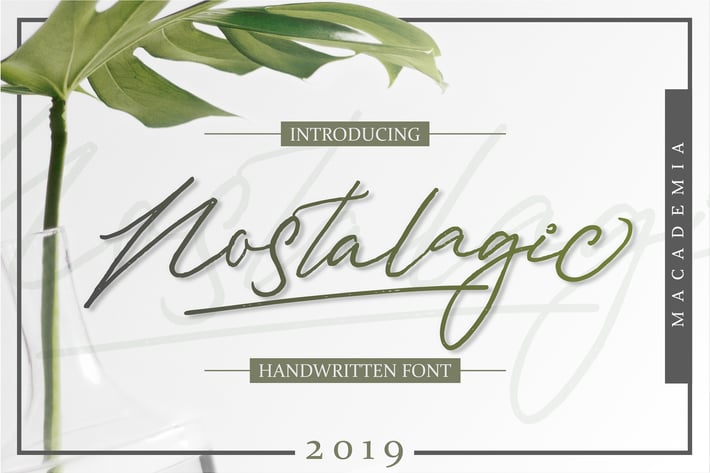
Nostalagic - Script Font
Macademia
Nostalagic is perfect to use for Logotype, Letterhead, Poster, Apparel Design, Label and etc.
The alternative characters were divided into several features such as Stylistic Alternates and Ligature.
- All Alternates
- Standard Ligatures
- Punctional
Fonts include Multilingual Support